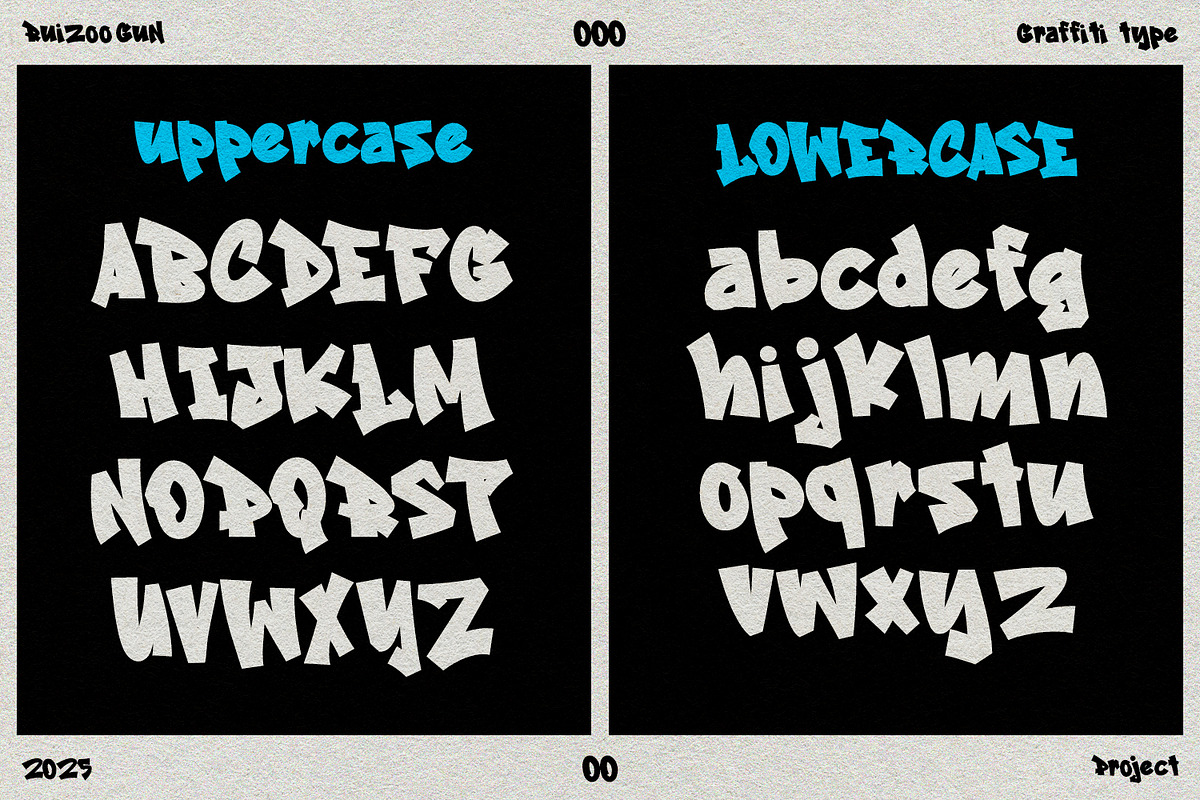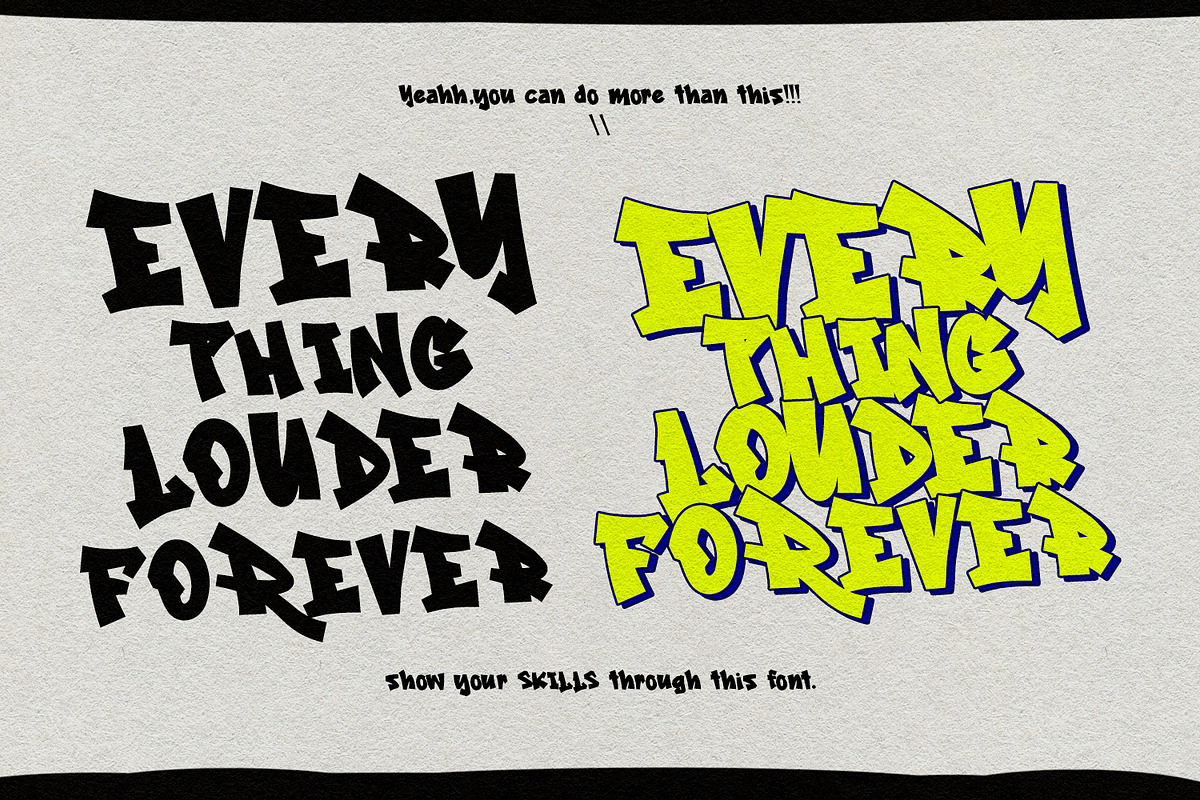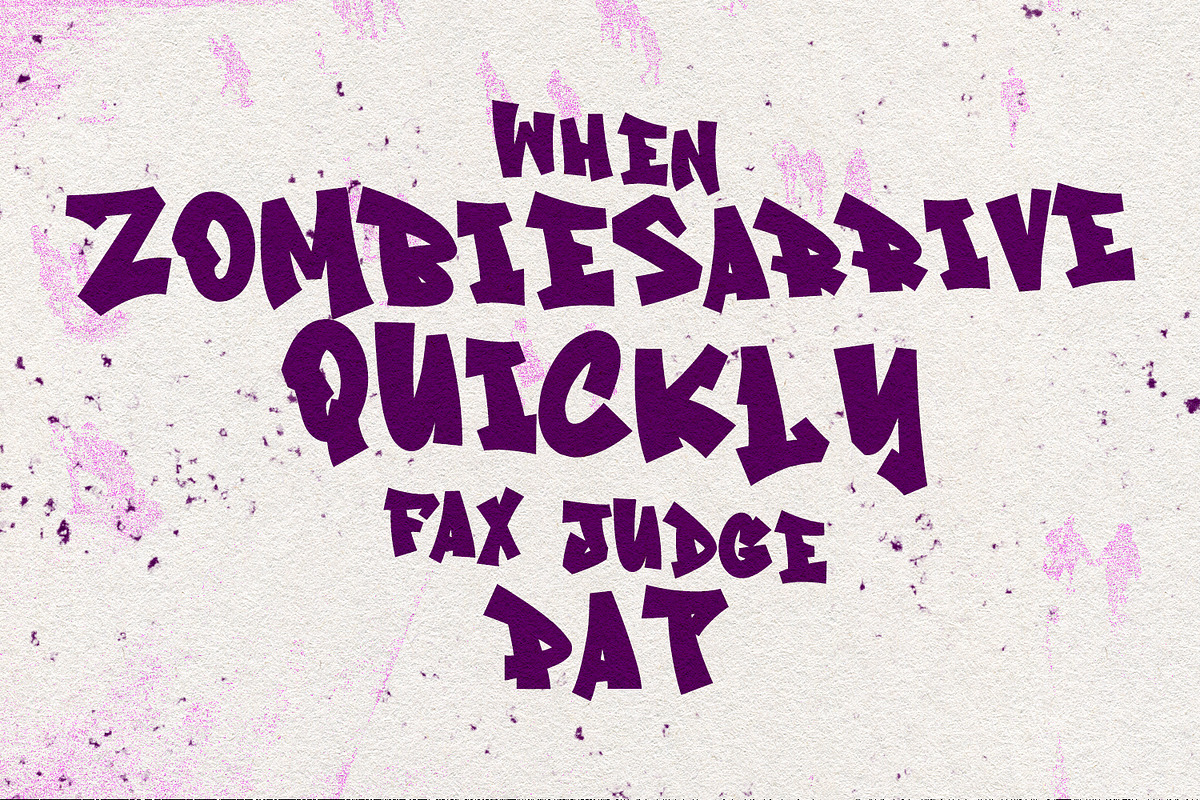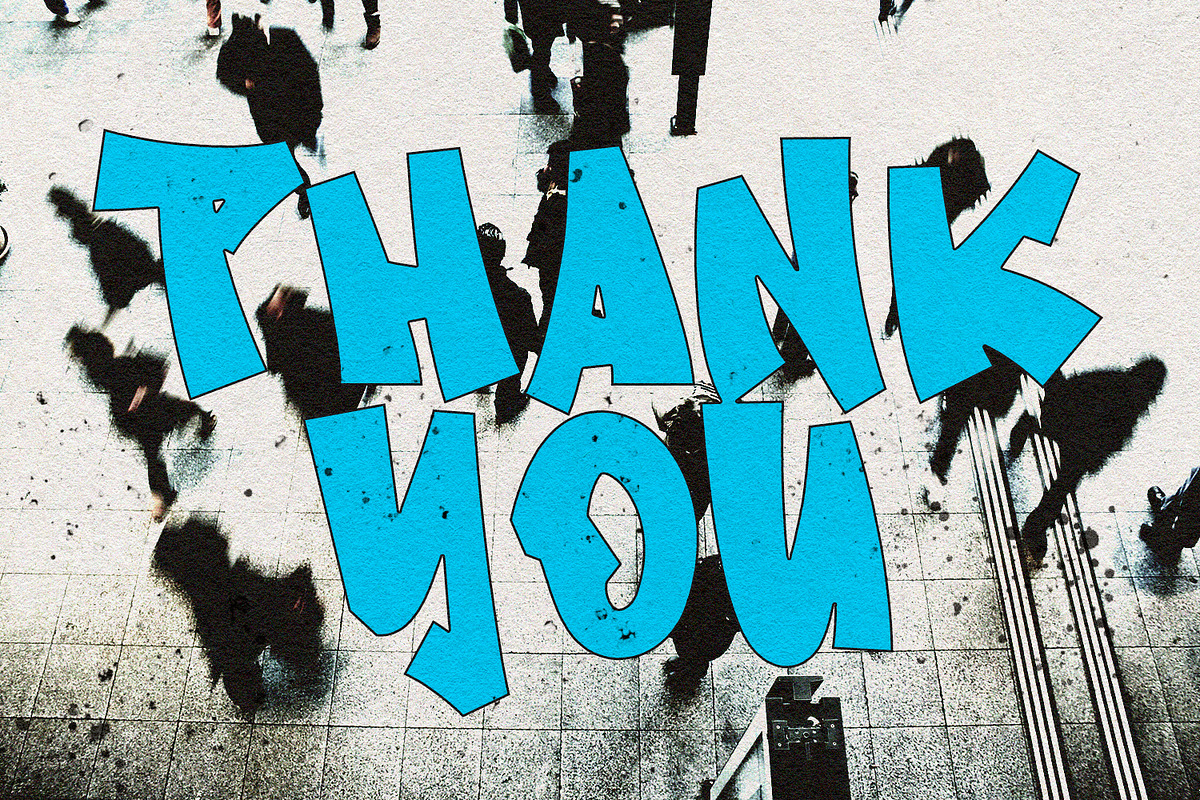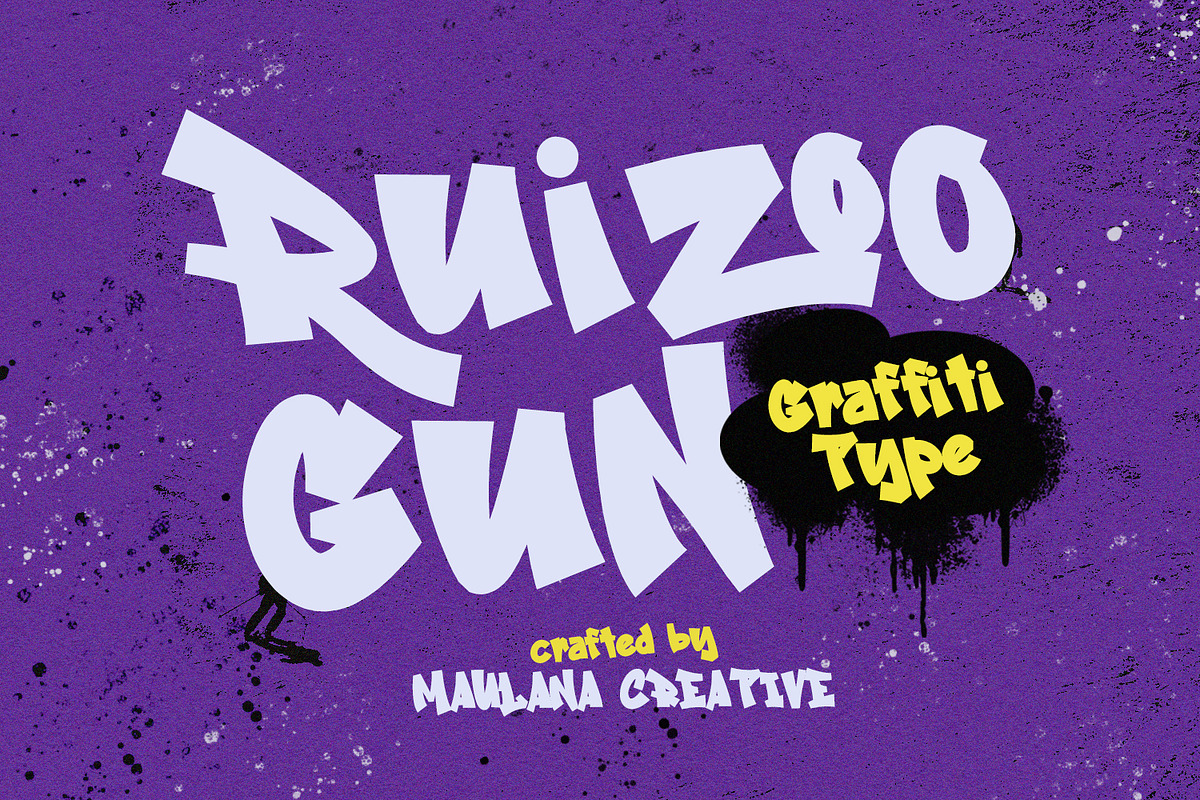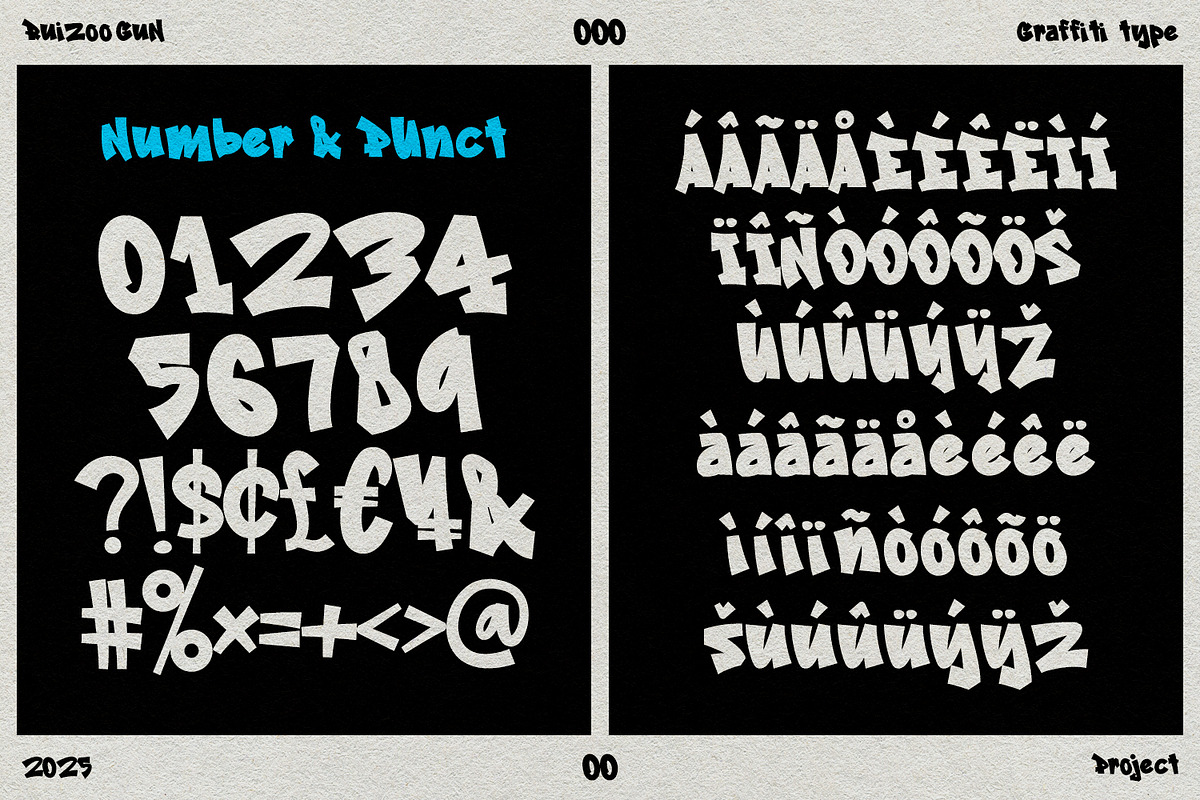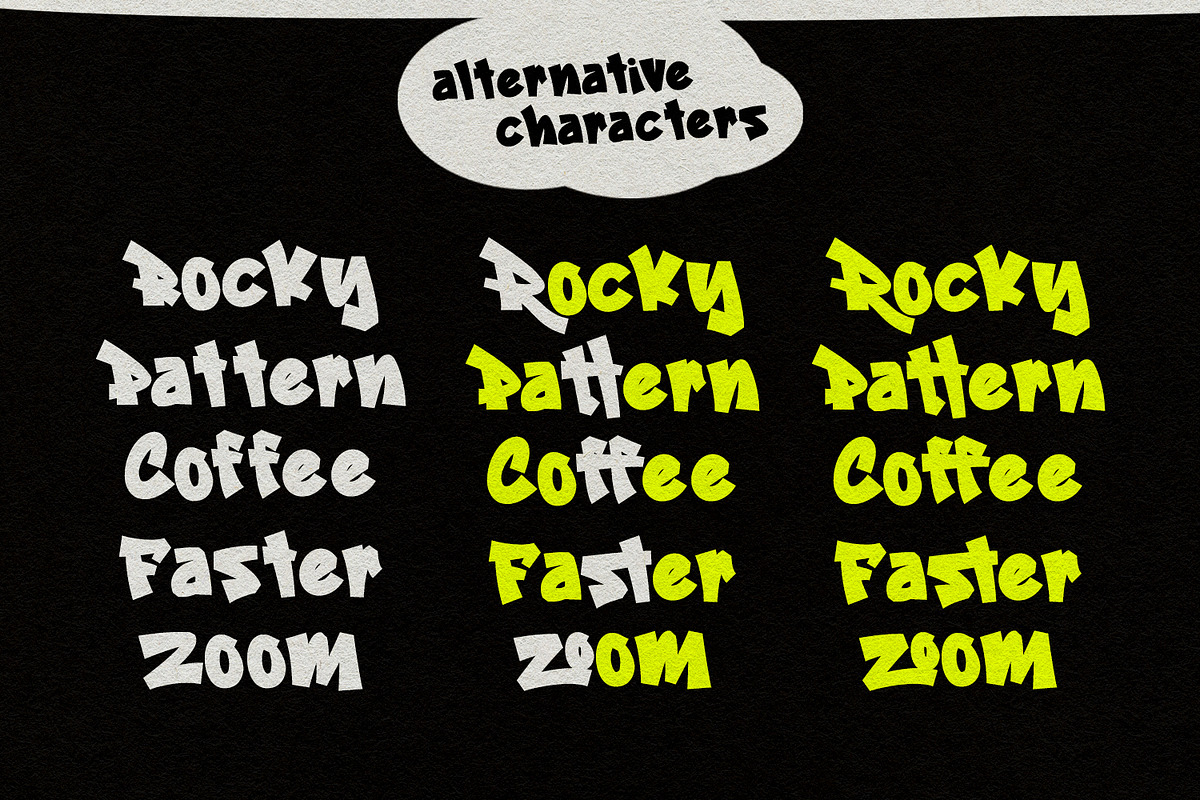
Ruizoo Gun Graffiti Type
Ruizoo Gun is a fancy graffiti style font. With fun character with a bit of ligatures and alternative. To give you an extra creative work Ruizoo Gun font support multilingual more than 100+ language. This font is good for logo design, Social media, Movie Titles, Books Titles, a short text even a long text letter and good for your secondary text font with sans or serif. Make a stunning work with Ruizoo Gun font.